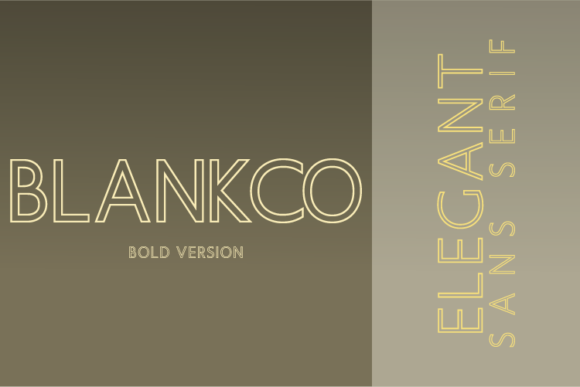
The Ultimate Guide to Blankco Outline Bold Font
I’ll never forget the time I was working on a project for a trendy boutique hotel, and I just couldn’t find the right font to capture their modern, edgy vibe. The client was specific about wanting something fresh, geometric, and versatile. That’s when I stumbled upon Blankco Outline, and it was love at first sight! 💡
Blankco Outline is a stunning, sans-serif font that has become a staple in my design toolkit. With its big x-height value, geometrical letterforms, sharp edges, and small stroke contrast, it’s reminiscent of the neo-grotesk fonts of the 20th Century. In this article, I’ll share my honest review, a practical guide on how to use it, and some awesome alternatives to explore.
• ✅ Extremely versatile: perfect for magazines, posters, branding, websites, and more!
• ✅ Fresh and modern aesthetic: adds a touch of sophistication to any design
• ✅ Geometric letterforms: creates a cohesive, harmonious look
• ✅ Easy to read: big x-height value makes it perfect for body text
While Blankco Outline is an amazing font, there are a few things to keep in mind:
• 🤔 Limited italic version: not as many swashes or flourishes as some other fonts
• ⚠️ Might not be the best choice for very small text sizes: loses some of its geometric charm
If you’re looking for more fonts like Blankco Outline, here are some awesome alternatives:
• Montserrat: a geometric sans-serif font with a similar urban feel
• Inter: a modern sans-serif font with a focus on legibility and versatility
• Akzidenz-Grotesk: a classic neo-grotesk font with a similar aesthetic
• Arial: a timeless sans-serif font with a clean, elegant look
While I couldn’t find any information on the exact design process behind Blankco Outline, I like to imagine that it was created by a team of designers who wanted to craft a font that would be both modern and timeless. Perhaps they drew inspiration from the geometric shapes and clean lines of 20th-century architecture, or the bold, edgy feel of urban street art.
Font Name Blankco Outline Bold Font
Author Nan Design
Q: What is the x-height value of Blankco Outline?
A: Blankco Outline has a relatively large x-height value, making it easy to read and perfect for body text.
Q: Does Blankco Outline have an italic version?
A: While Blankco Outline doesn’t have a traditional italic version, it does offer some stylistic alternates and glyphs to add some extra flair to your text.